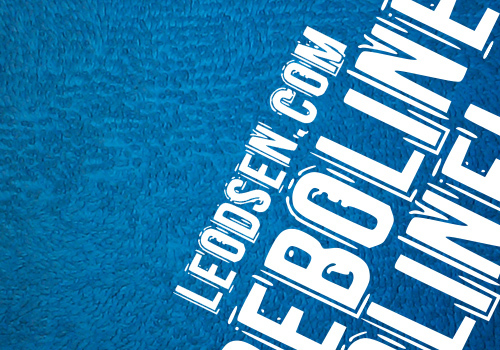
Beboline is a free distorted display font with tall caps and a rough handmade edge. Uneven strokes, sliced gaps, and ink flecks make the letters look scraped and hastily painted.
Its scratches can echo distressed illustrations on music posters and album packaging. The narrow silhouette also suits skate merchandise and rough event branding, where lettering becomes part of the surface texture. In magazines, it can give a cover line the rawness of photocopied gig flyers.
Beboline